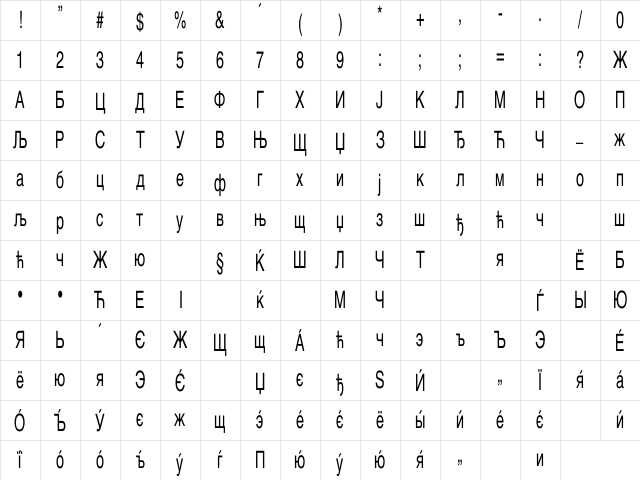
Helv Cirilica Cn Regular
Complete Helv Cirilica Cn Regular glyph index. Displaying only characters natively supported by Helv Cirilica Cn Regular font.
Design Context for Helv Cirilica Cn
Helv Cirilica Cn is a composed and adaptable typeface that performs quietly and consistently across a wide range of design contexts.
Pro Tip: Use Helv Cirilica Cn in both headline and body roles to test its range before committing to a single application.